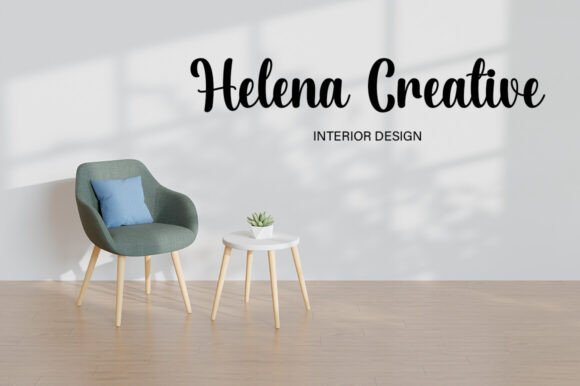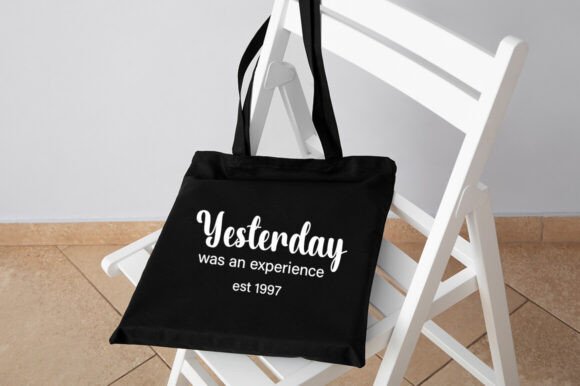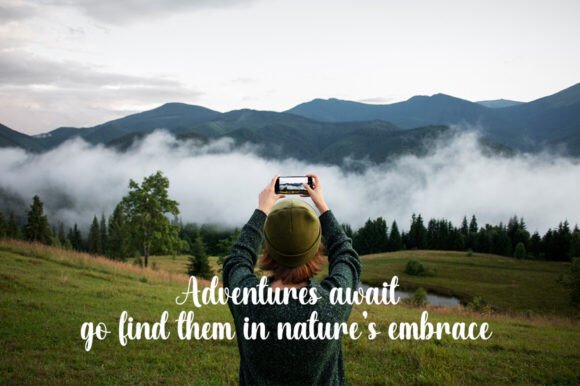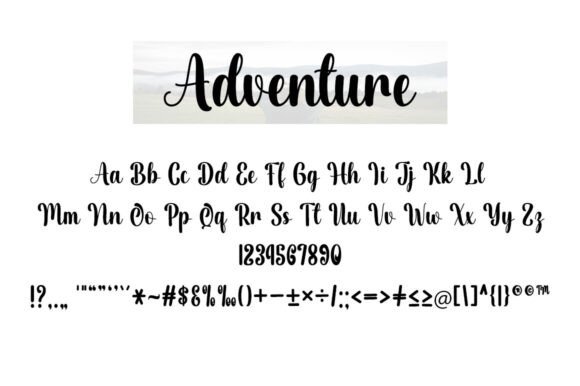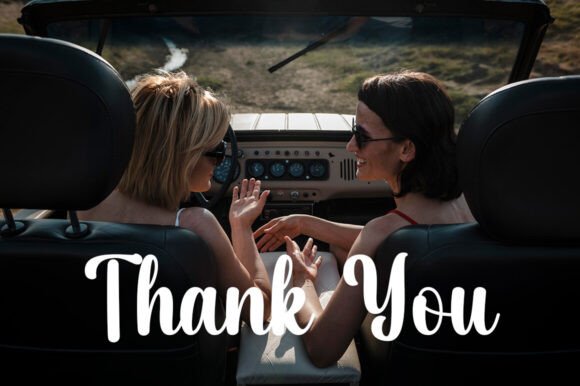
Unleash Your Creativity with Adventure Font: A Timeless Handwritten Treasure
Are you on the hunt for a font that can add a touch of magic to your designs? Look no further than Adventure Font, a lovely and timeless handwritten font that is sure to capture the hearts of designers and crafters alike. With its unique and beautiful touch, this font is the perfect choice for creating eye-catching logos, branding, and quotes that will leave a lasting impression.
The Charm of Adventure Font
Adventure Font is a true gem in the world of typography. Every letter has been carefully crafted to possess a distinctive character that will make your designs come alive. The font’s handwritten style exudes a sense of warmth and personality, making it ideal for projects that require a personal touch. Whether you’re working on a logo, a brand identity, or a quote, Adventure Font is sure to add a dash of elegance and sophistication.
What Makes Adventure Font Special?
So, what sets Adventure Font apart from other fonts? For starters, it’s PUA (Private Use Area) coded, which means you can easily access all the amazing glyphs and ligatures. This feature makes it incredibly easy to use and customize the font to suit your needs. With Adventure Font, you can unlock a world of creative possibilities and take your designs to the next level.
Adventure Font is a dream come true for designers and crafters who are looking for a font that can help them create stunning visuals. The font’s versatility makes it suitable for a wide range of projects, from:
- Logos and branding: Create a lasting impression with a custom logo that showcases your brand’s personality.
- Quotes and posters: Add a touch of elegance to your quotes and posters with a font that’s both beautiful and easy to read.
- Stationery and invitations: Make your stationery and invitations stand out with a font that’s both whimsical and sophisticated.
Why Choose Adventure Font?
With so many fonts available, why choose Adventure Font? Here are just a few reasons why this font stands out:
- Unique and beautiful touch: Every letter has a distinctive character that will make your designs come alive.
- PUA coded: Easily access all the amazing glyphs and ligatures to take your designs to the next level.
- Timeless and versatile: Suitable for a wide range of projects, from logos and branding to quotes and posters.
- Easy to use: Adventure Font is incredibly easy to use, even for those who are new to design.
In conclusion, Adventure Font is a timeless handwritten treasure that is sure to capture the hearts of designers and crafters alike. Its unique and beautiful touch, PUA coding, and versatility make it the perfect choice for creating eye-catching logos, branding, and quotes. Whether you’re a seasoned designer or just starting out, Adventure Font is a must-have in your design toolkit.